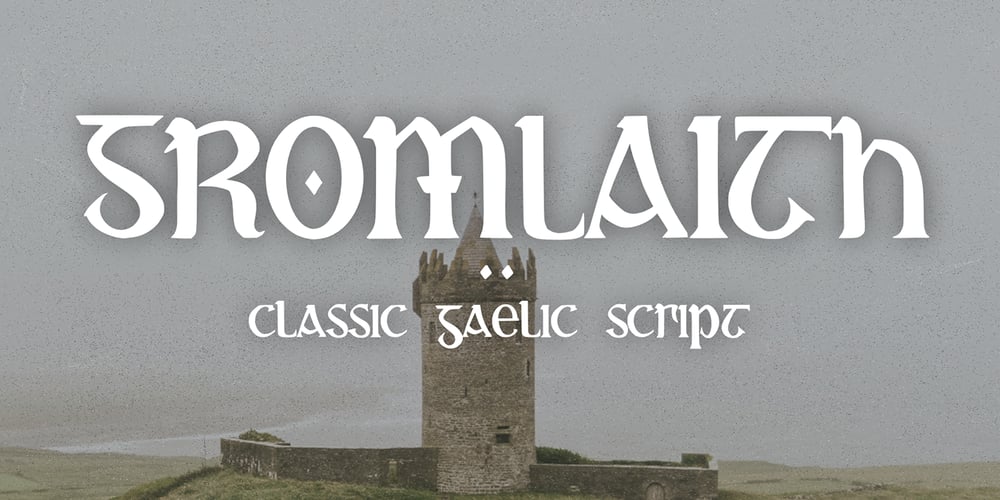
Gromlaith Classic Font Family was designed by Sipanji and published by Sipanji21. Gromlaith Classic contains 1 styles and family package options. This blackletter font is inspired by the classical Gaelic script that was used from the 16th until mid 18th Century. Featured with beautiful lines and bold accents, this font is good for decorative type settings such as headlines, traditional newspapers, pub signs, greetings cards, and advertising purposes. You can even use this typeface for your unique logotype. With your amazing creative idea, you can use this font to make it even more outstanding and cool!